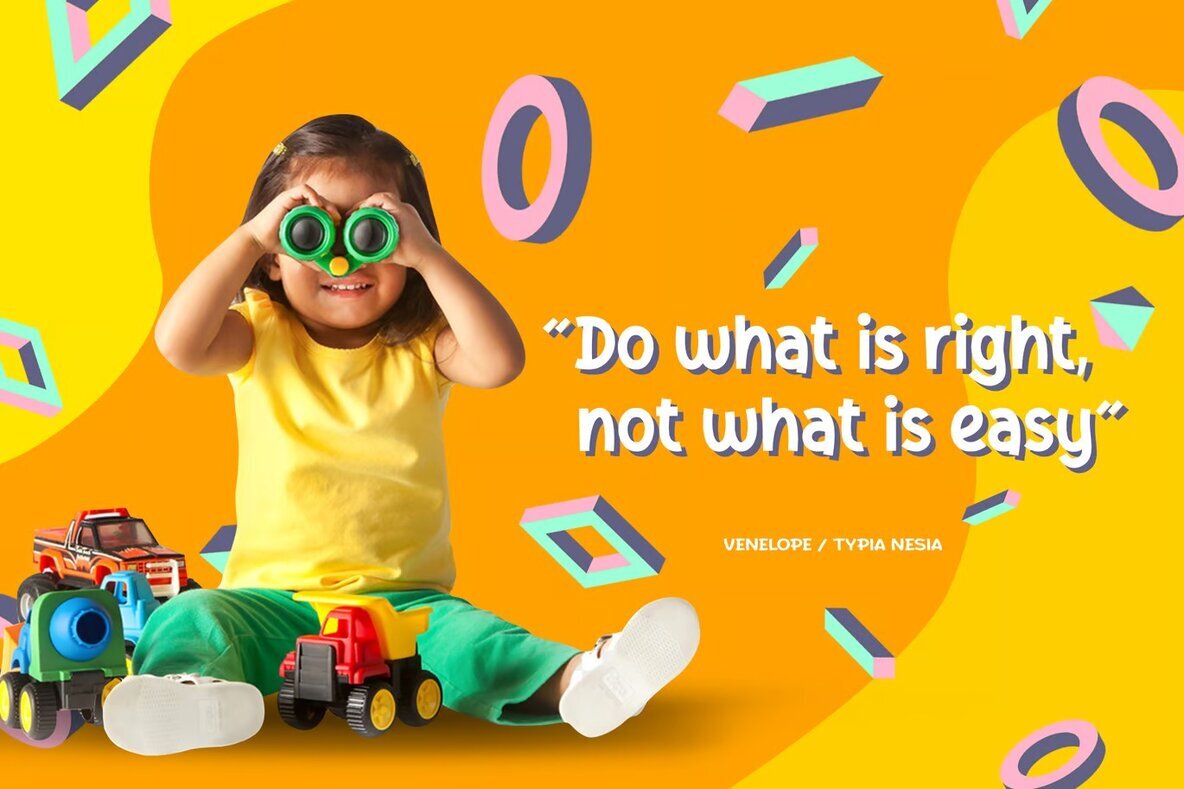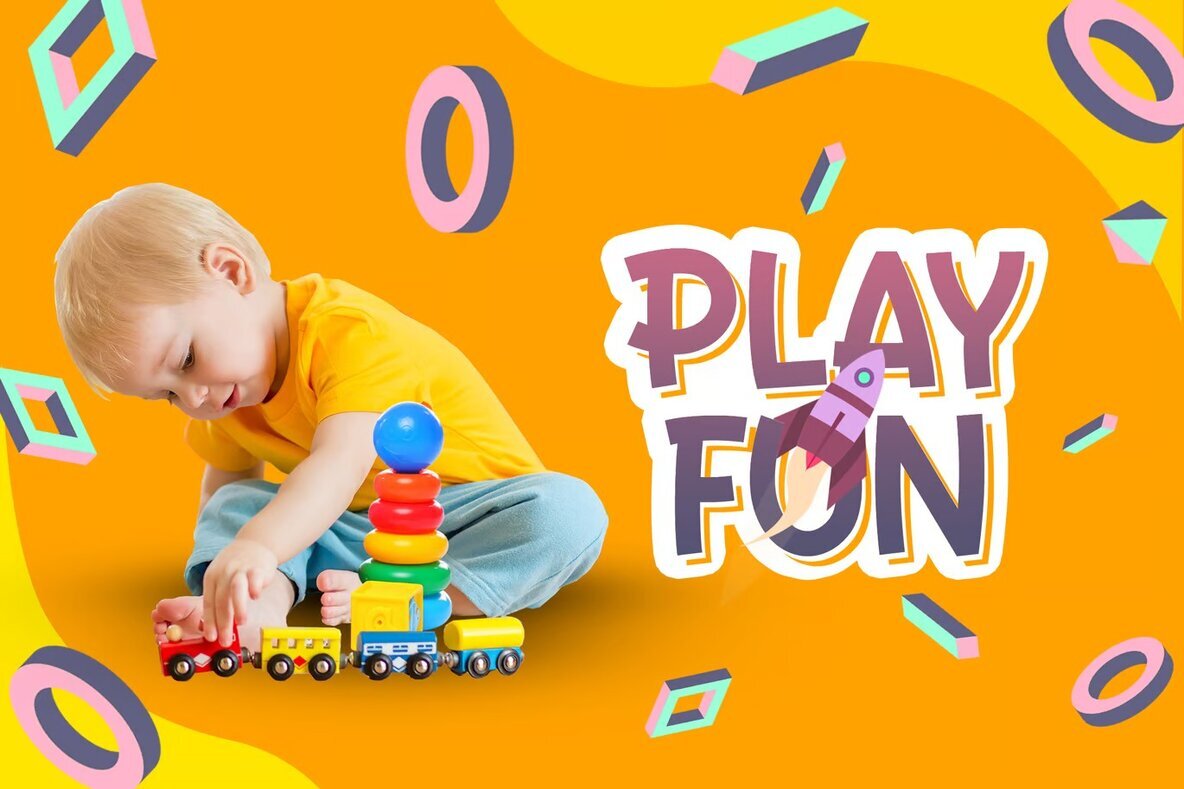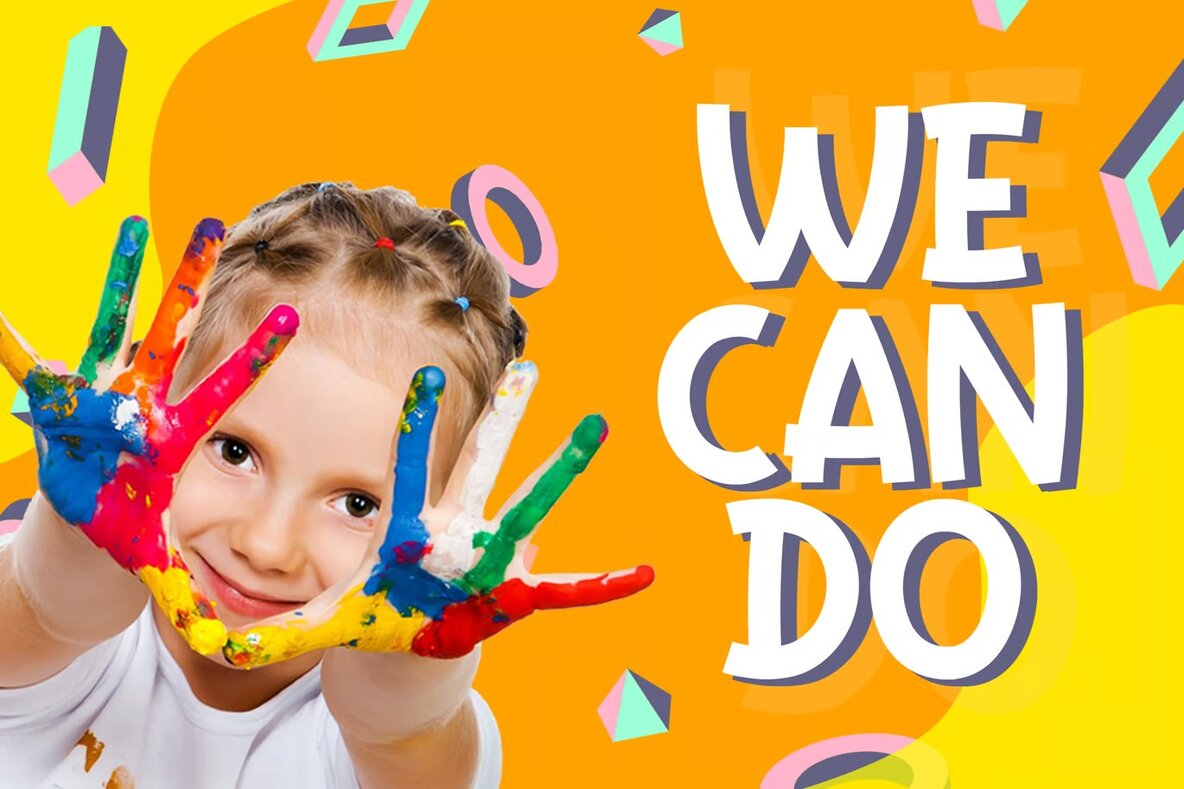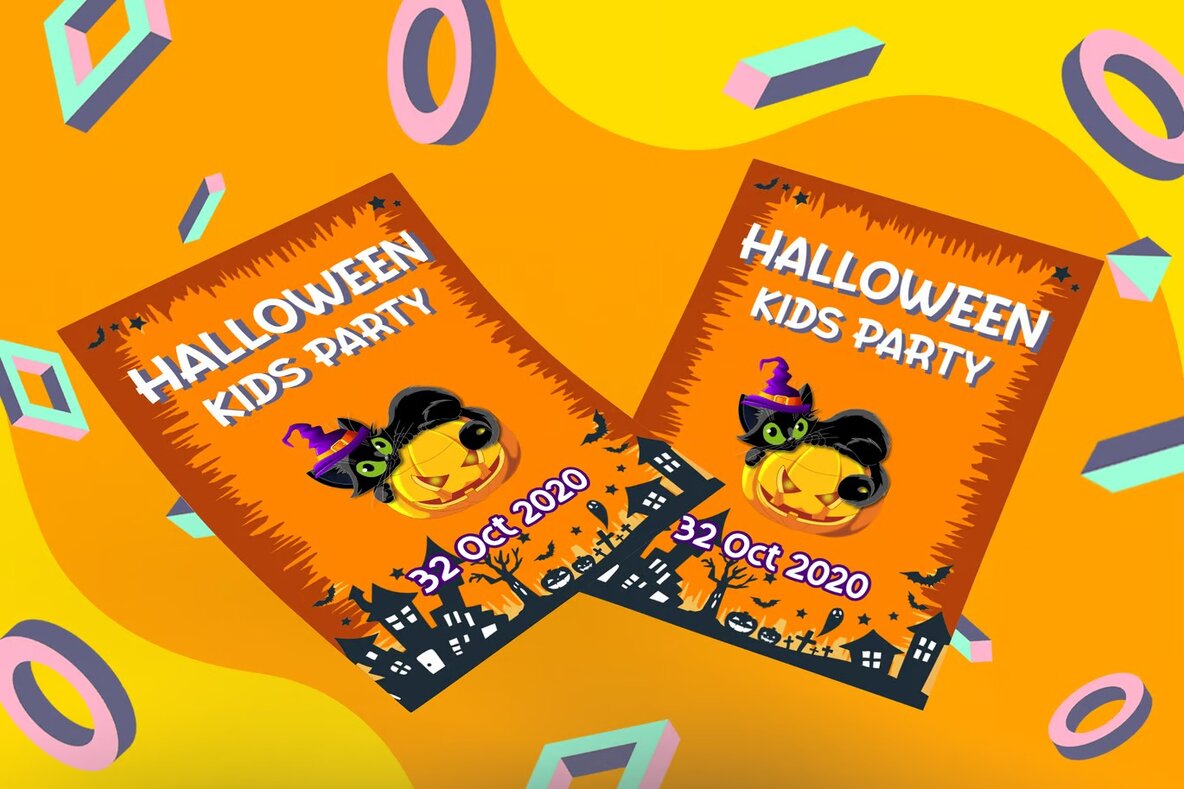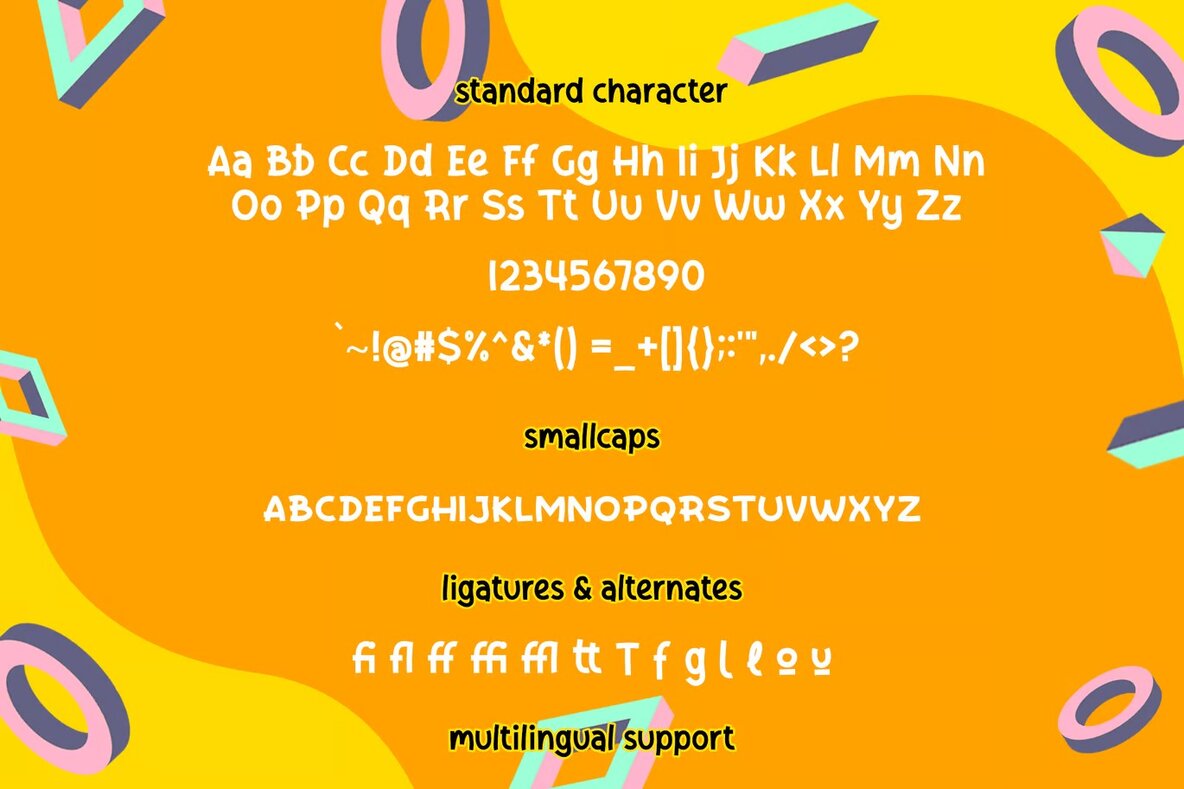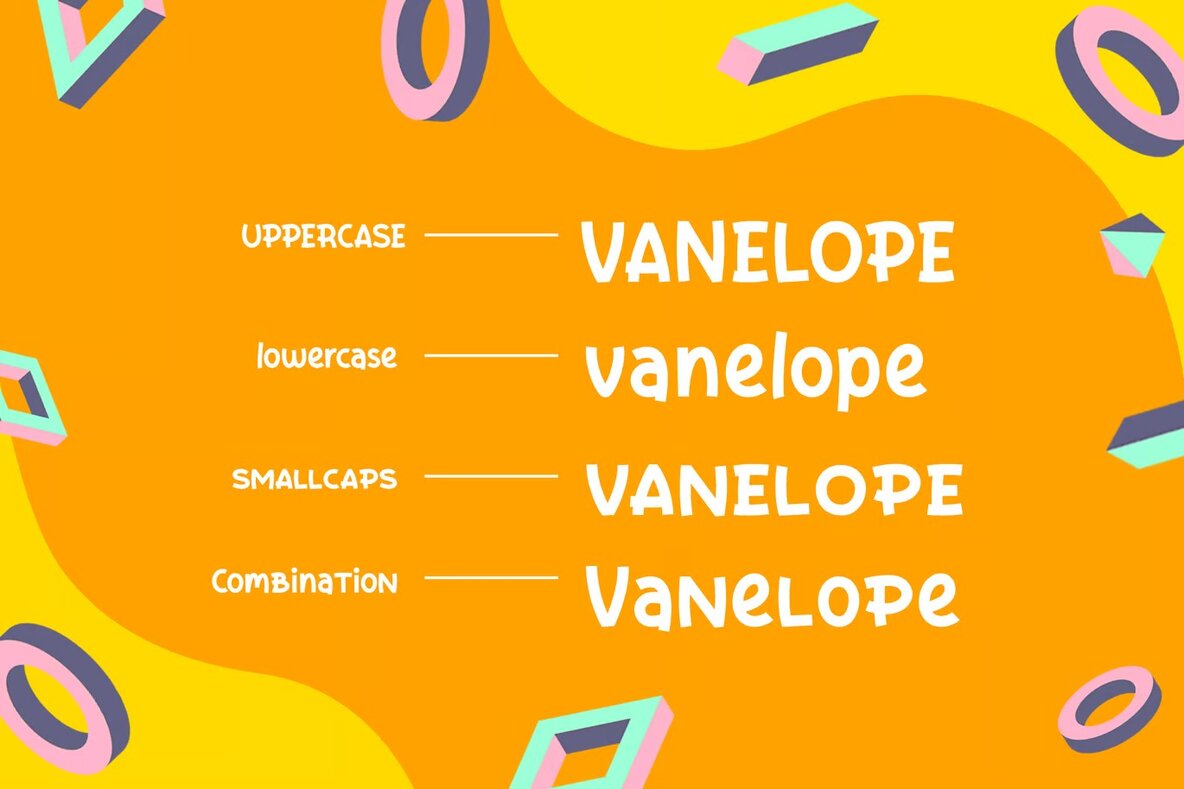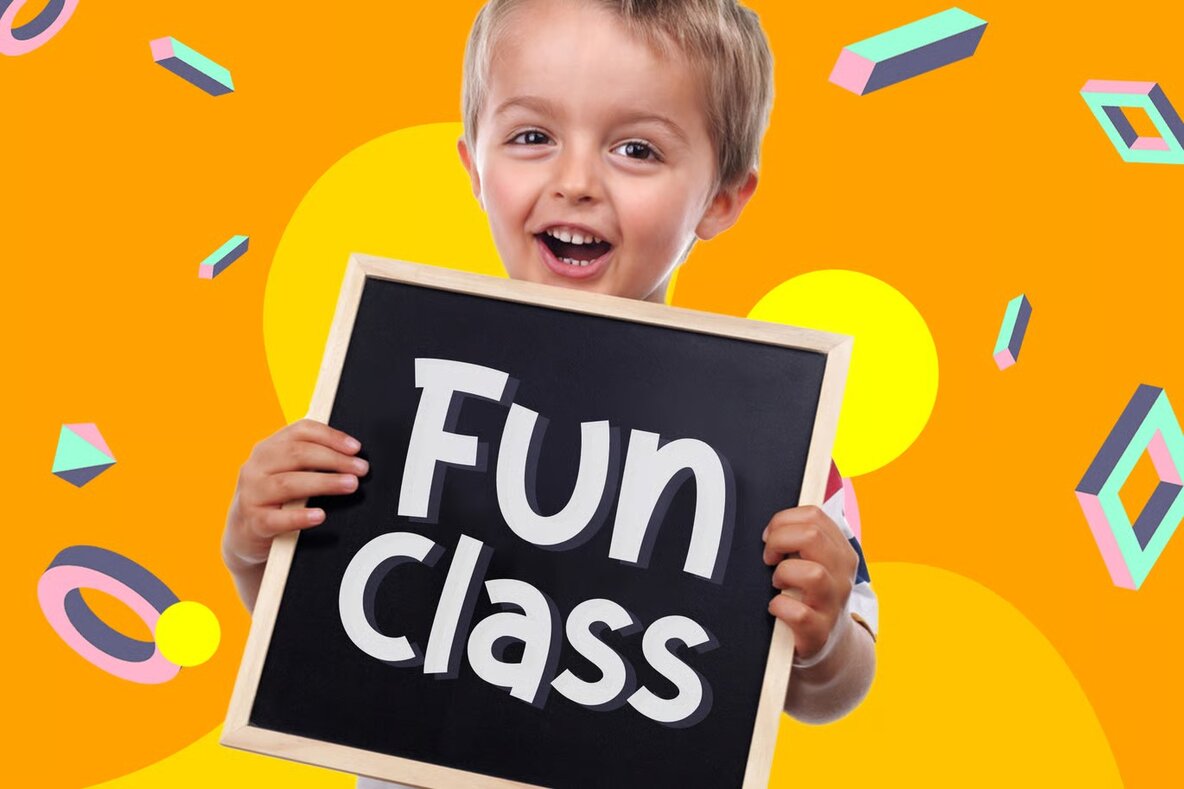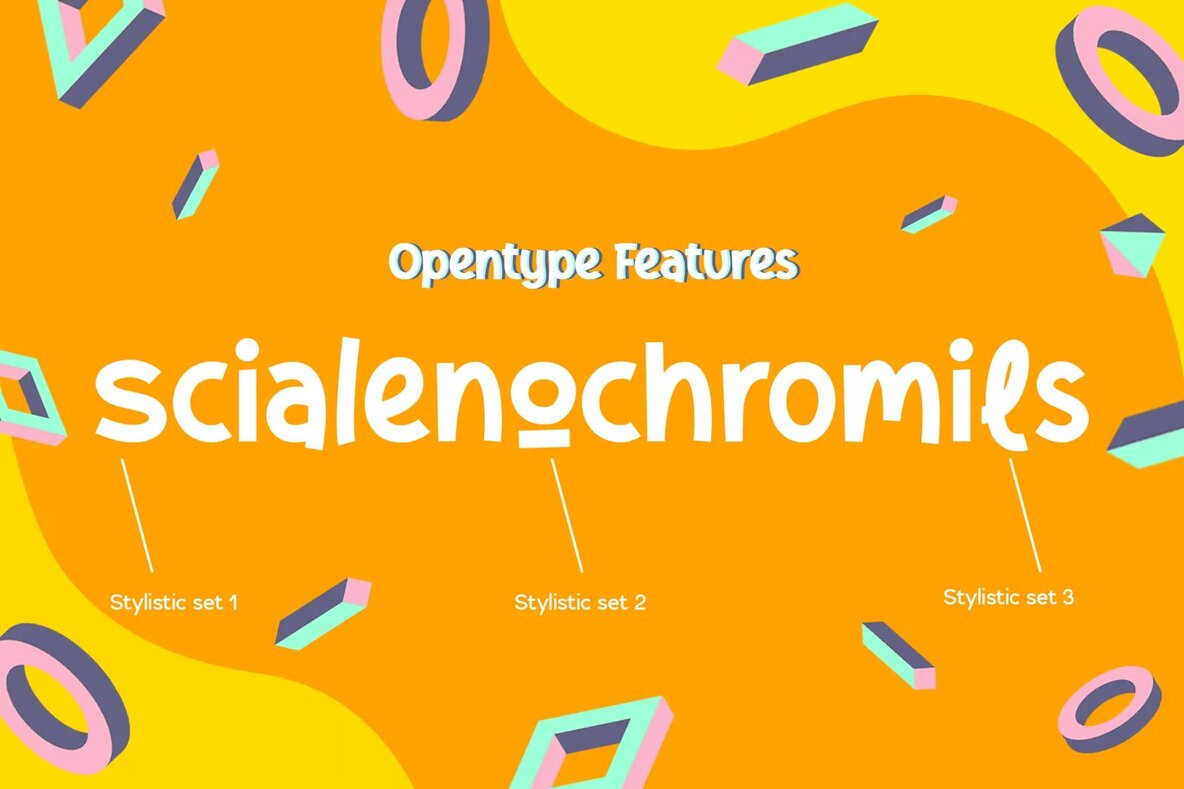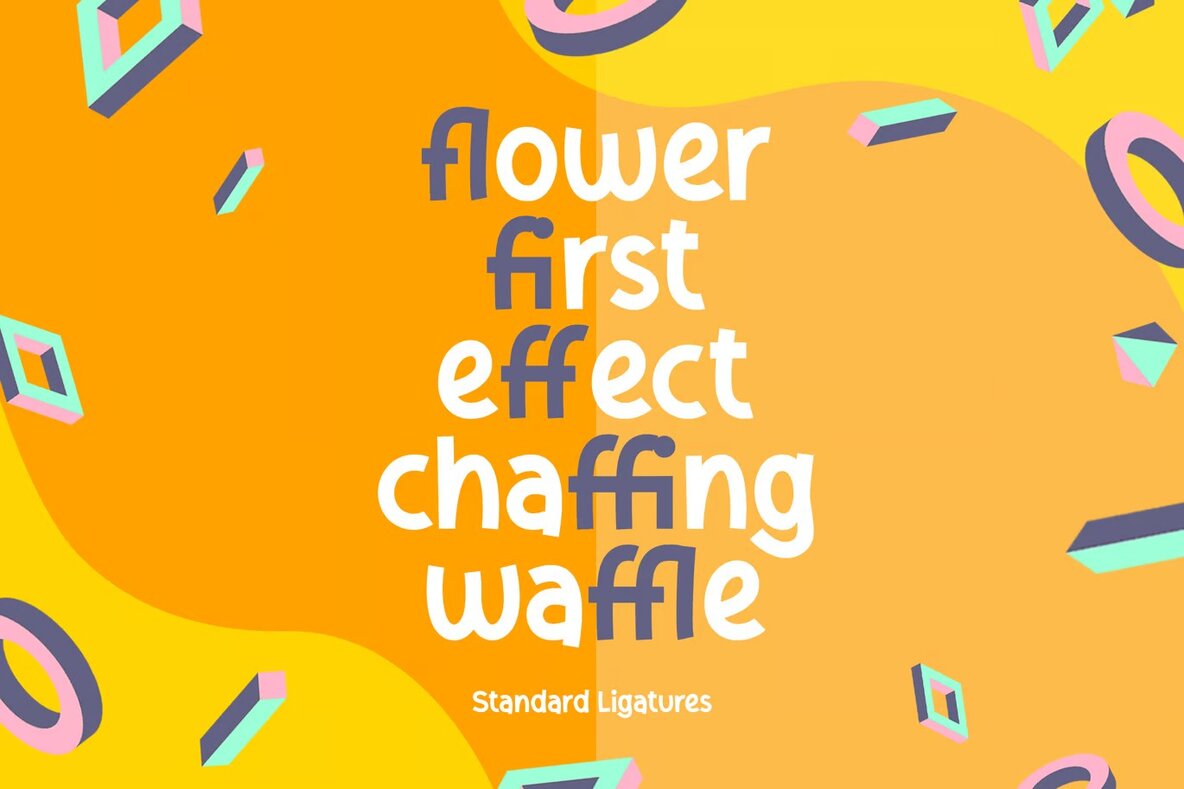
Vanelope Font
Vanelope is a whimsical and playful font perfect for a variety of projects. Whether you're designing a logo, creating branding materials, or working on a modern advertising project, Vanelope adds a touch of fun to any design. It works well for cartoon animations, children's books, poster quotes, and even editorial designs. This font is also ideal for personal projects like custom mugs, pillows, and t-shirts, where hand-lettered aesthetics are desired.
Vanelope includes uppercase and lowercase standard characters, punctuation, numerals, and a variety of glyph variations. It supports OpenType features such as small caps, standard ligatures, and stylistic alternates, providing designers with flexibility and creativity. Additionally, it includes a range of multilingual characters, making it versatile for international audiences.